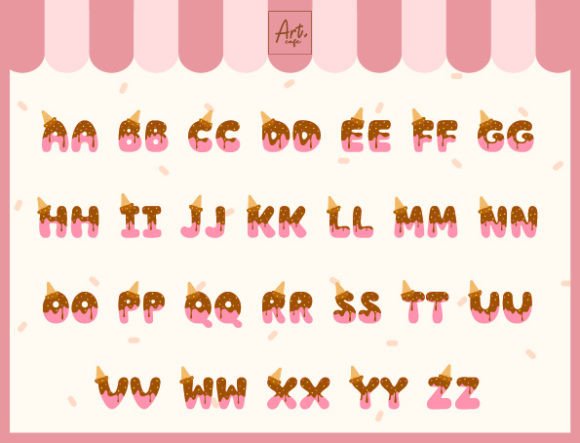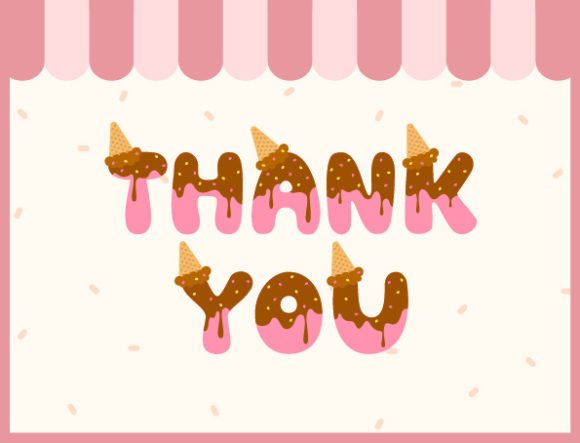
Introducing Chocolate Ice Cream Font: The Sweetest Addition to Your Design Collection
Are you ready to add a dash of fun and whimsy to your designs? Look no further than the Chocolate Ice Cream Font, a deliciously crafted typeface that’s sure to satisfy your sweet tooth. This intricately designed font is the perfect treat for designers, crafters, and anyone looking to add a playful touch to their projects.
The Inspiration Behind the Font
The Chocolate Ice Cream Font is inspired by the classic dessert that’s a staple of summertime fun: a scoop (or two) of your favorite ice cream. The font’s creator carefully crafted each letter to resemble the colors and textures of a freshly served ice cream cone, complete with liquid syrup and toppings. The result is a font that’s as mouthwatering as it is visually appealing.
Key Features of the Chocolate Ice Cream Font
- Intricate design: Each letter is carefully crafted to resemble a sweet treat, making it perfect for dessert or bakery-themed projects.
- Colorful: The font features a range of colors that mimic the hues of a freshly served ice cream cone, from creamy whites and rich chocolates to bright toppings.
- Fun and playful: The Chocolate Ice Cream Font is designed to bring a smile to your face, making it perfect for projects that require a lighthearted touch.
- Versatile: Whether you’re designing a logo, creating a social media graphic, or crafting a dessert-themed party invitation, this font is sure to add a touch of whimsy to your project.
Perfect for Dessert-Themed Projects
The Chocolate Ice Cream Font is the perfect addition to any dessert-themed project. Imagine using it to create a logo for your bakery, a social media graphic for your ice cream shop, or a party invitation for a dessert-themed celebration. The font’s playful design and colorful hues are sure to make your project stand out and leave a lasting impression.
Tips for Using the Chocolate Ice Cream Font
To get the most out of the Chocolate Ice Cream Font, here are a few tips to keep in mind:
- Use it sparingly: While the font is certainly eye-catching, it’s best to use it sparingly to avoid overwhelming your design. Try using it for headings or titles, and pairing it with a simpler font for body text.
- Experiment with colors: One of the best things about the Chocolate Ice Cream Font is its colorful design. Don’t be afraid to experiment with different colors and combinations to find the perfect look for your project.
- Pair it with fun graphics: The Chocolate Ice Cream Font is the perfect pairing for fun and playful graphics, such as illustrations of ice cream cones, cupcakes, or other desserts.
Chocolate Ice Cream Font in Action
To give you a better idea of what the Chocolate Ice Cream Font looks like in action, here are a few examples of how it can be used:
- Dessert menu: Use the Chocolate Ice Cream Font to create a mouthwatering dessert menu for your restaurant or bakery.
- Party invitations: Create fun and playful party invitations for a dessert-themed celebration using the Chocolate Ice Cream Font.
- Social media graphics: Use the font to create eye-catching social media graphics for your ice cream shop or bakery.